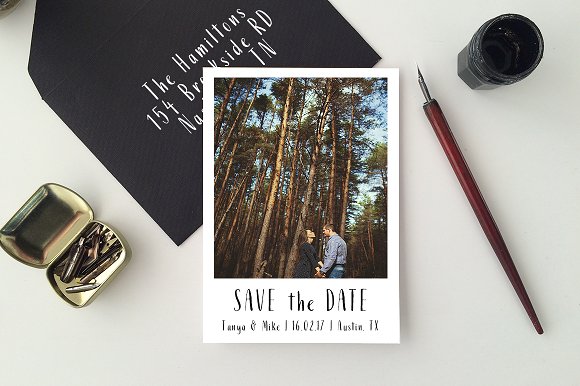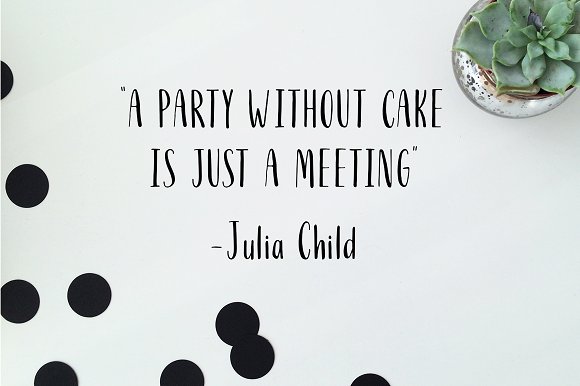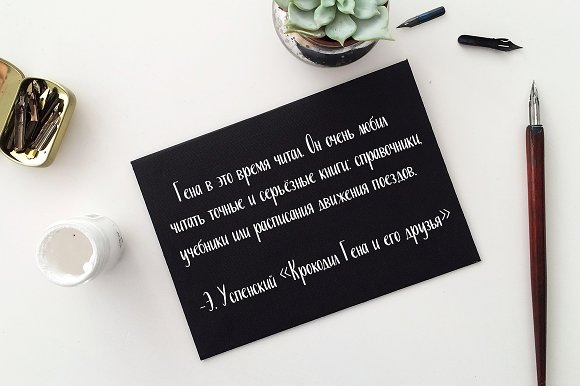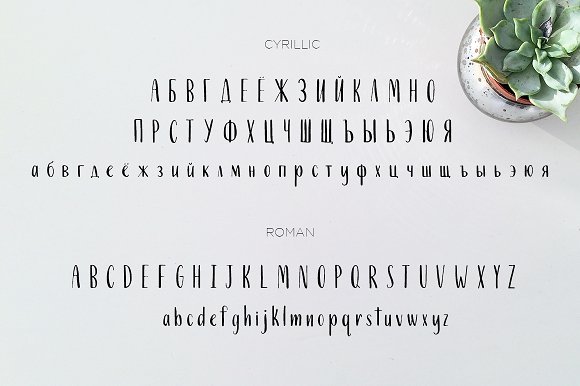
Ricotta. A Cyrillic and Roman Font
Ricotta is a hand written pointed pen calligraphy font that is filled with personality. It includes both Roman and Cyrillic charachters. Great for use in creating posters, logos, quotes, blog headlines, badges, labels, packaging design, etc.